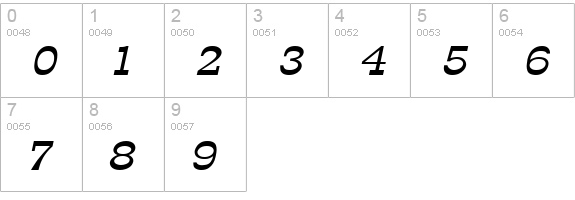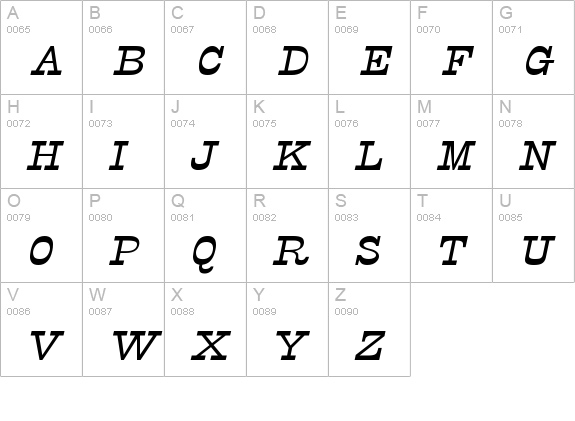
Circus Wide Italic Font Details
Circus Wide Italic is a distinctive, extended-width, italic variant in the Circus typeface family \xE2\x80\x94 well suited to design and typography projects.
Circus Wide Italic font exudes a whimsical and playful charm that is perfect for adding a touch of fun to your designs. With its exaggerated and elongated letterforms, this typeface is sure to make a bold statement. The slanted italic style adds a dynamic and energetic look to any project, making it ideal for eye-catching headlines or creative branding. Best of all, Circus Wide Italic is available for free download at FontsMarket.com. This means you can easily access this unique and distinctive font to enhance your designs without any cost. Whether you're working on a poster, flyer, logo, or any other creative project, Circus Wide Italic is a versatile and eye-catching choice that will surely make your work stand out. Download it now and let your creativity run wild with this playful and expressive typeface.